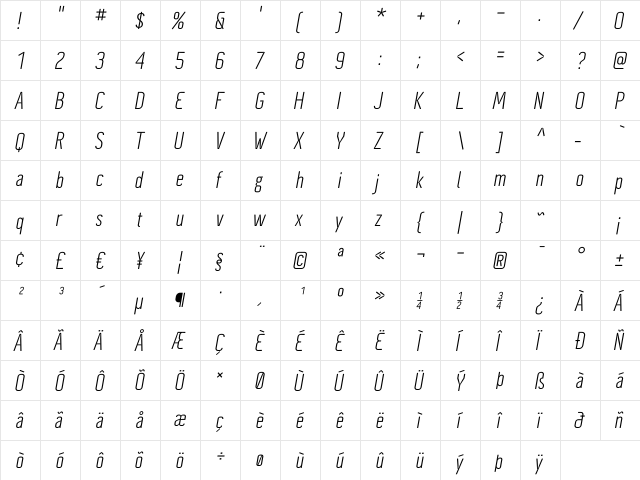
CynapseOblique Regular Font Preview
CynapseOblique Regular
Design Context for CynapseOblique Typeface
CynapseOblique is a composed and adaptable typeface that performs quietly and consistently across a wide range of design contexts. The dynamic lean of this cut emphasises speed and emphasis in any layout.
Pro Tip: Try CynapseOblique for annotation and caption copy alongside an upright companion — the contrast in angle creates a dynamic but ordered typographic system.